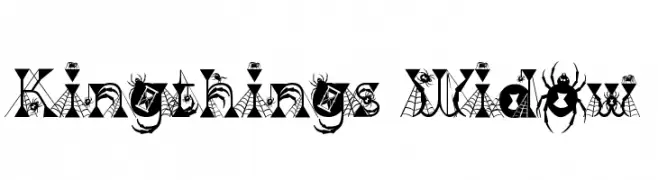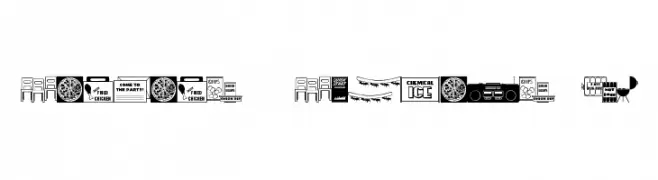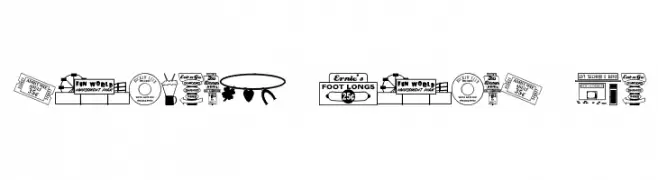
A playful font with characters in balloon shapes, perfect for fun and joyful designs.
A decorative font with spider and web motifs, perfect for Halloween themes.
A collection of vintage-style illustrations and signage evoking mid-20th century Americana.
A whimsical, decorative font featuring picnic and party-themed illustrations.
A playful dingbat font with cute Halloween-themed illustrations.
A spooky, playful font with jagged, uneven letters ideal for Halloween themes.
A bold, horror-themed font with a dripping, irregular design.